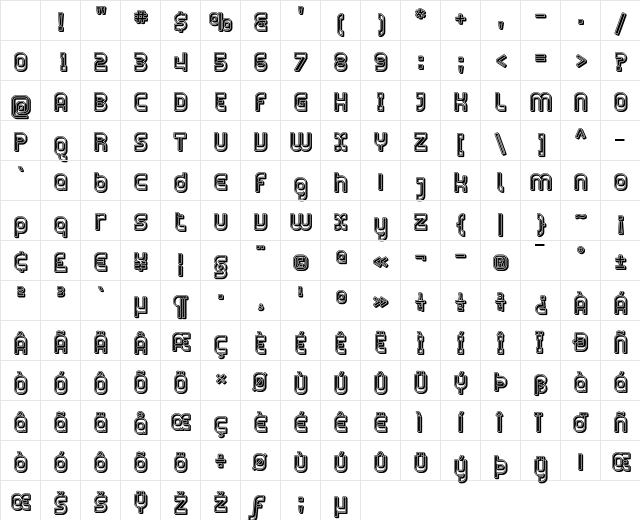
Complete Plasmatica Open Regular glyph index. Displaying only characters natively supported by Plasmatica Open Regular font.
Plasmatica Open is a composed and adaptable typeface that performs quietly and consistently across a wide range of design contexts.